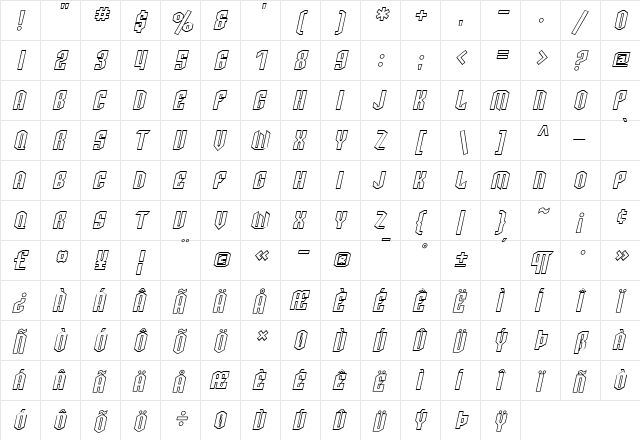
SF Archery Black SC Outline Oblique
Design Context for SF Archery Black SC Outline Typeface
SF Archery Black SC Outline is built around its visual character rather than neutral utility — its distinctive forms are designed to make an impression at display sizes. Its italic angle brings a sense of urgency and motion to the letterforms.
Font Pairing: Pair with a clean neutral sans-serif for body copy to let SF Archery Black SC Outline's character lead without overwhelming the composition.
Pro Tip: Use SF Archery Black SC Outline exclusively at display sizes — it was designed to be seen, not read at length. Let a neutral companion handle body copy.